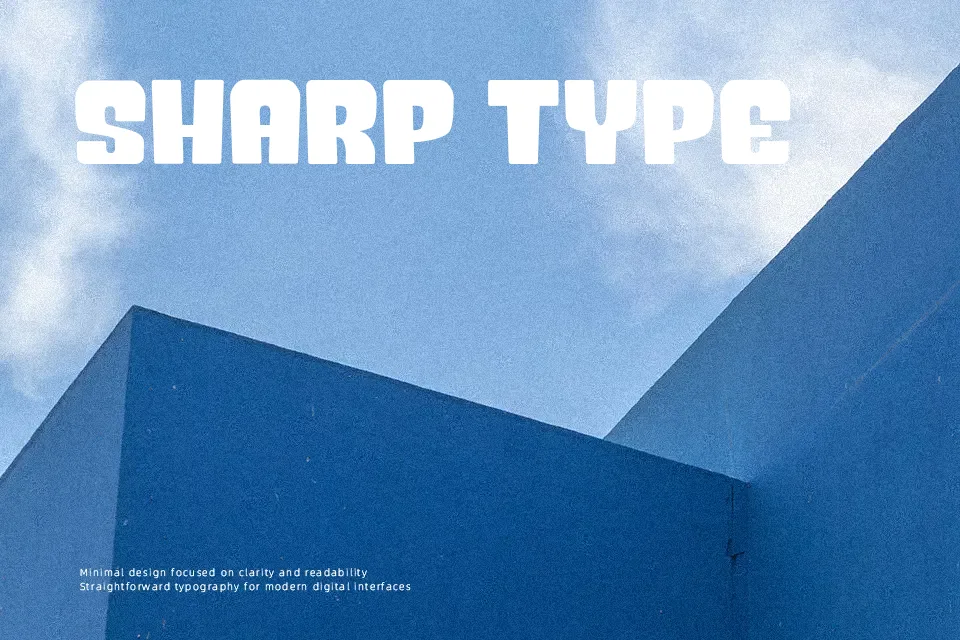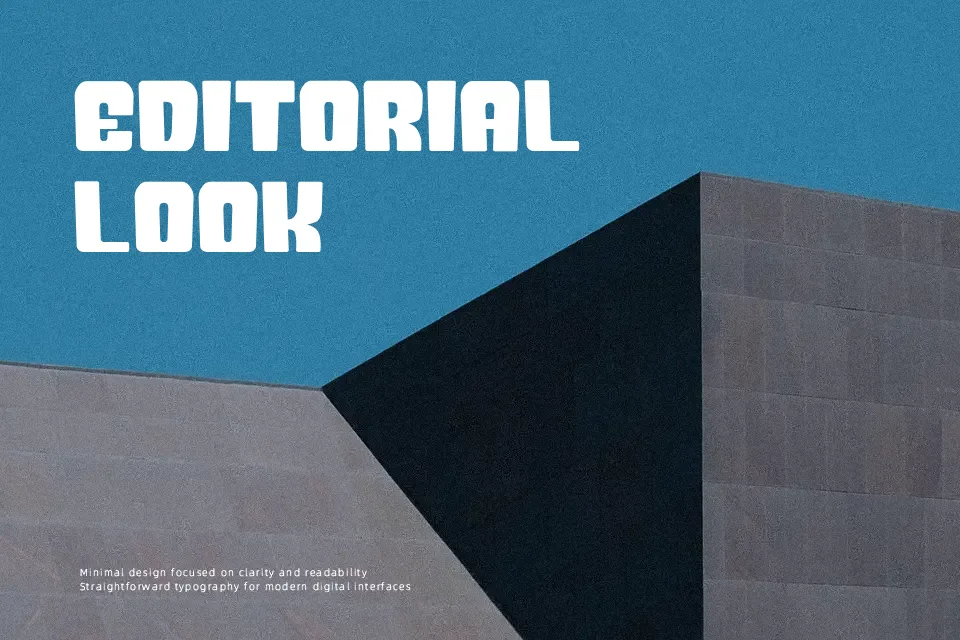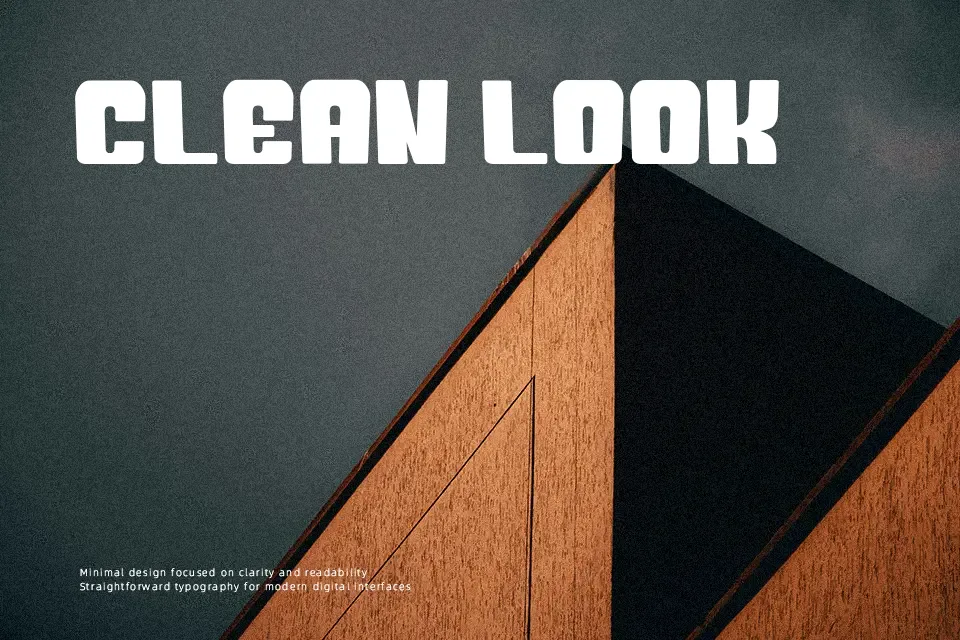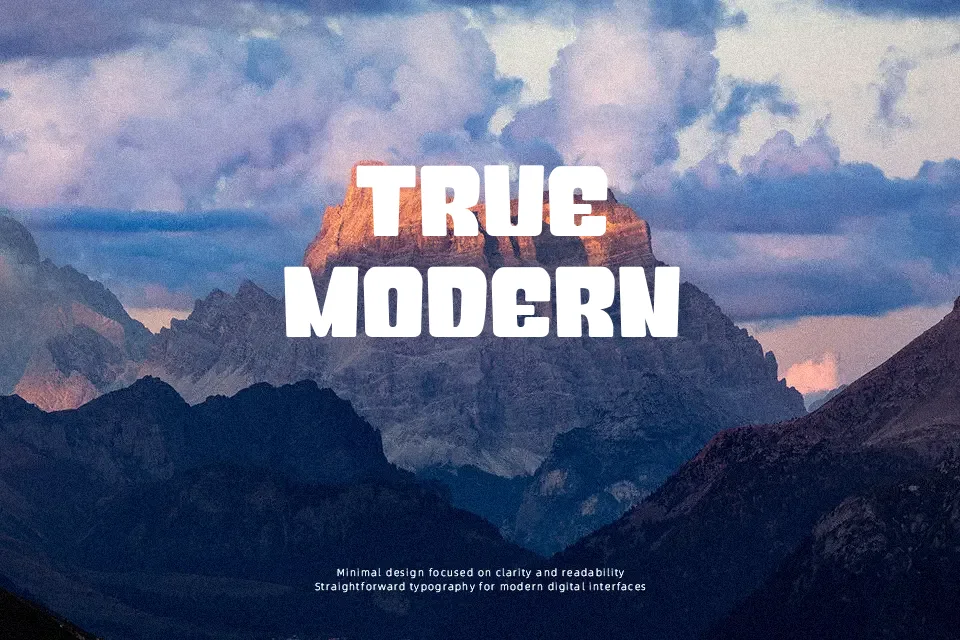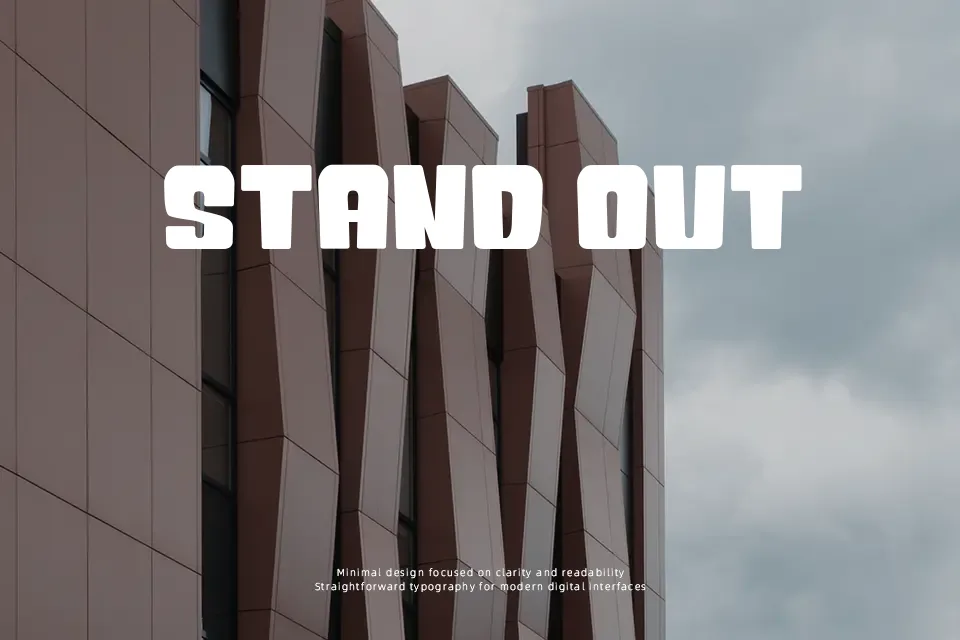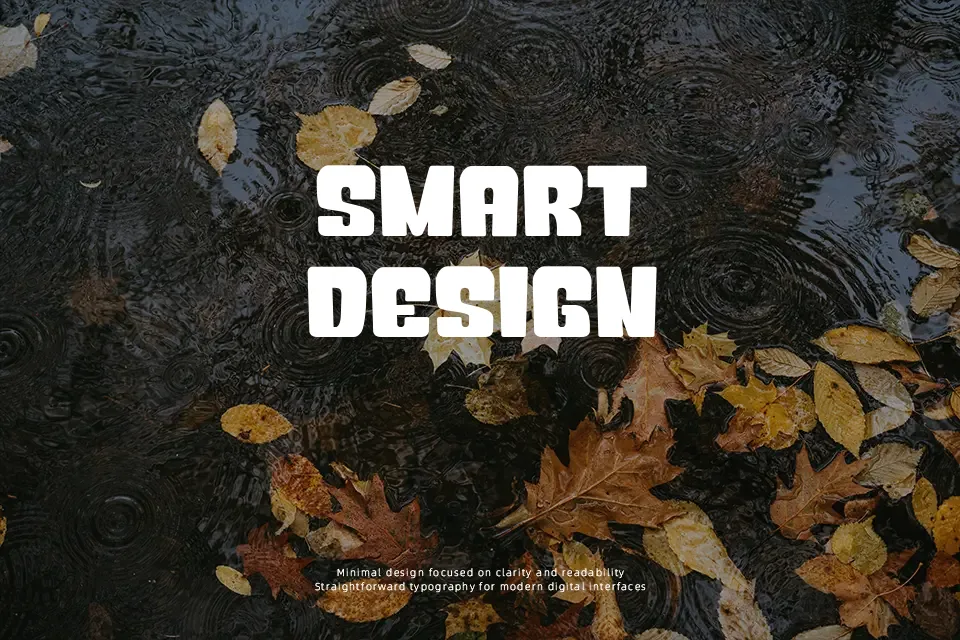
Okuba Cloud G Font
Okuba Cloud G Font uses thick, rounded letterforms with soft curves and an intentionally playful display rhythm. The characters appear broad and compact, while the low-contrast strokes keep individual shapes visually cohesive in short words and headlines. Its unusual forms give poster titles, children’s projects, and packaging graphics a clear decorative presence. Spacing works best when the type is allowed room to breathe rather than set in dense blocks. The font is most effective at larger sizes, where its curved construction remains easy to recognize. In small text or extended passages, the distinctive silhouettes can slow reading and make the page feel crowded.
Best For: children’s book covers,playful product packaging,poster headlines,short logo lettering
Perfect for headline, kids, and logo, with a cute and decorative style.